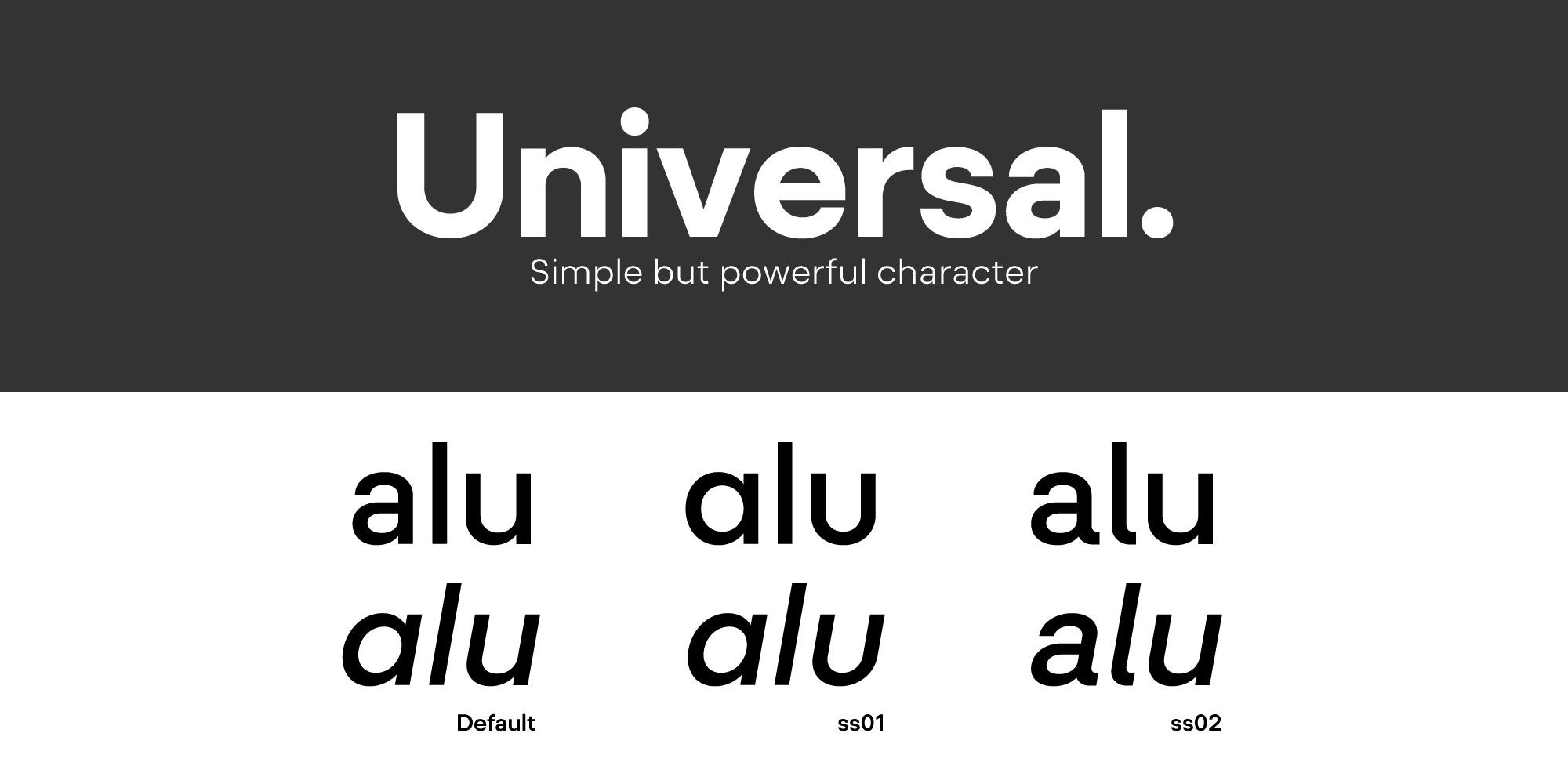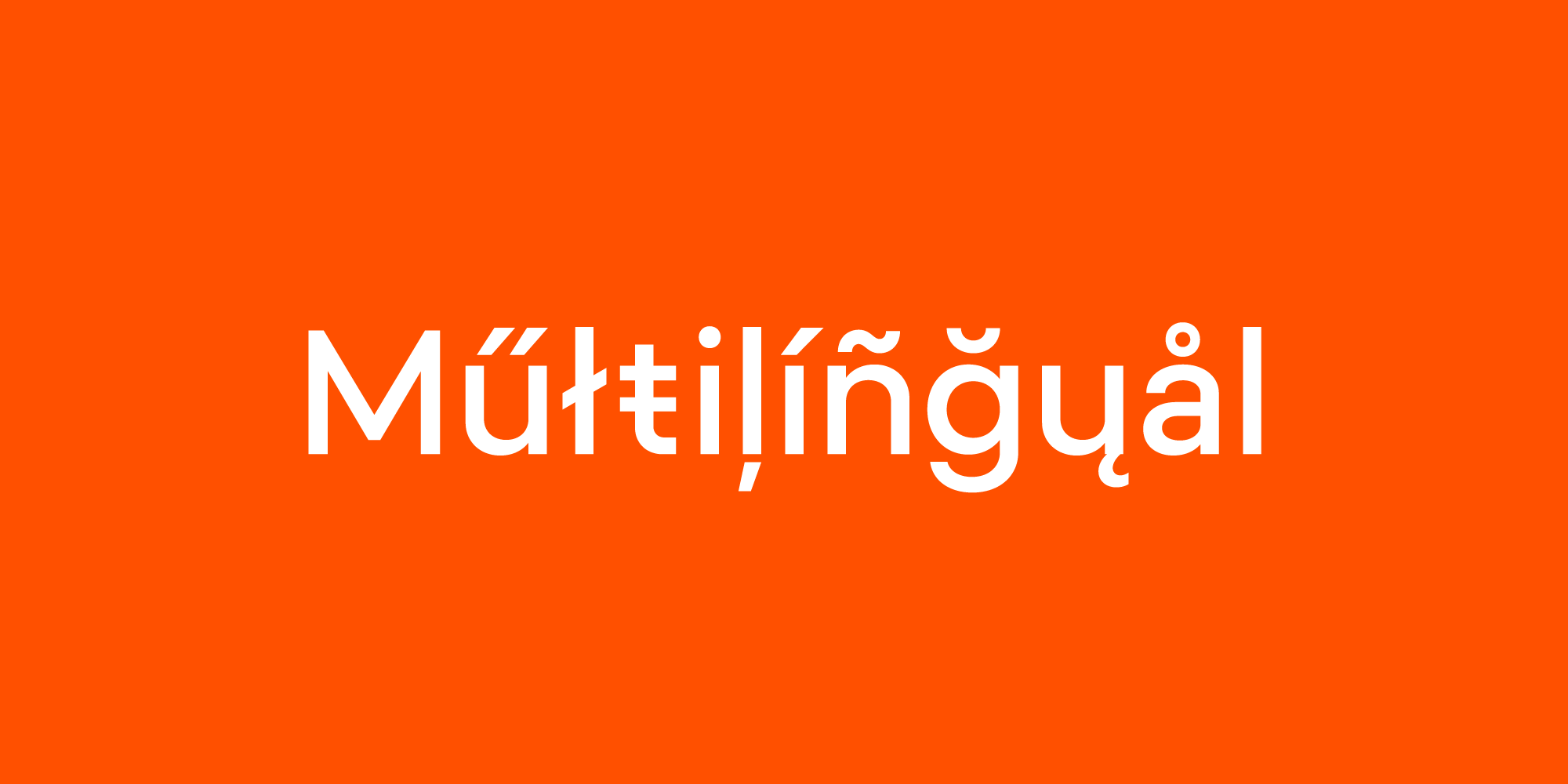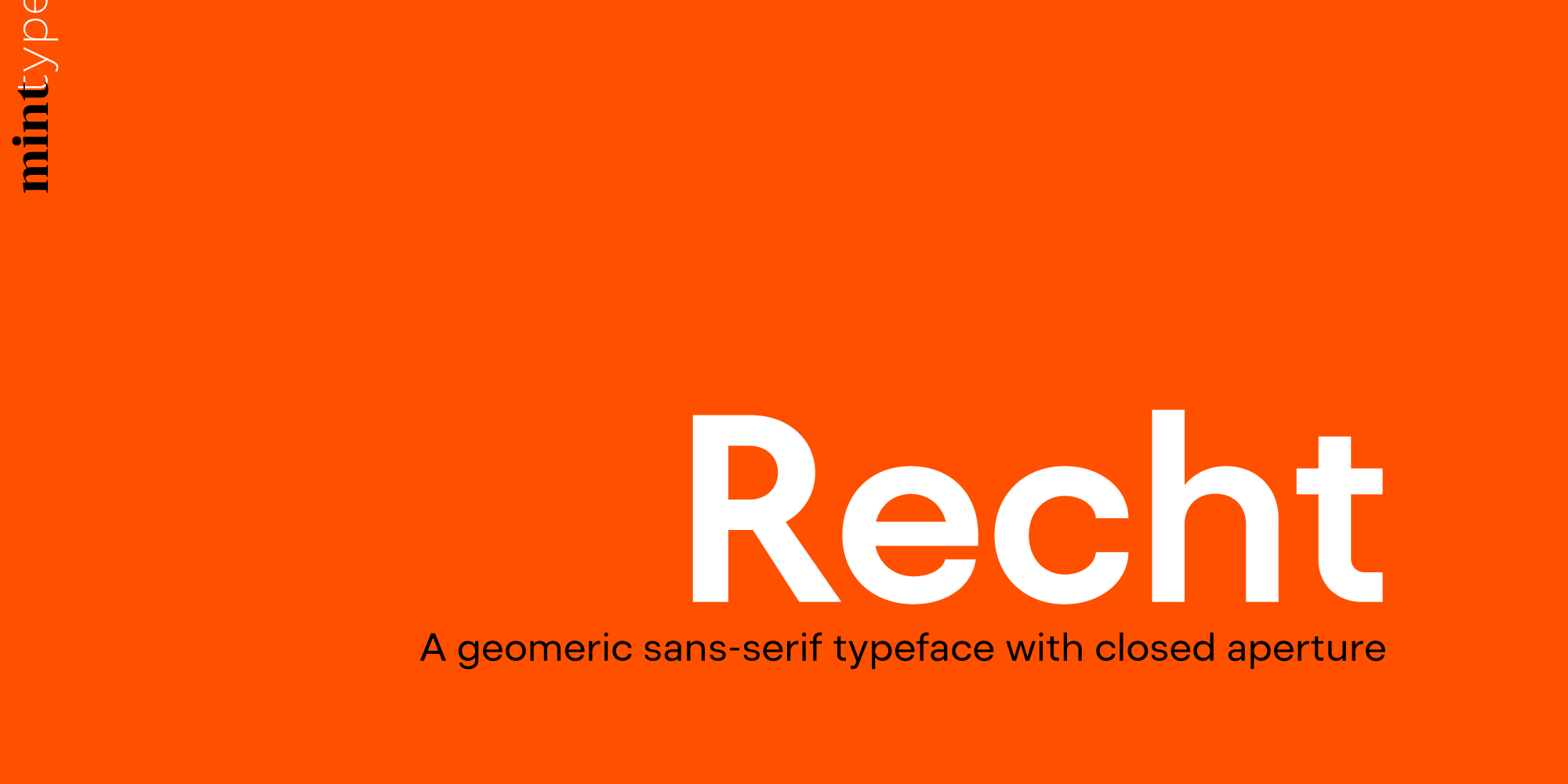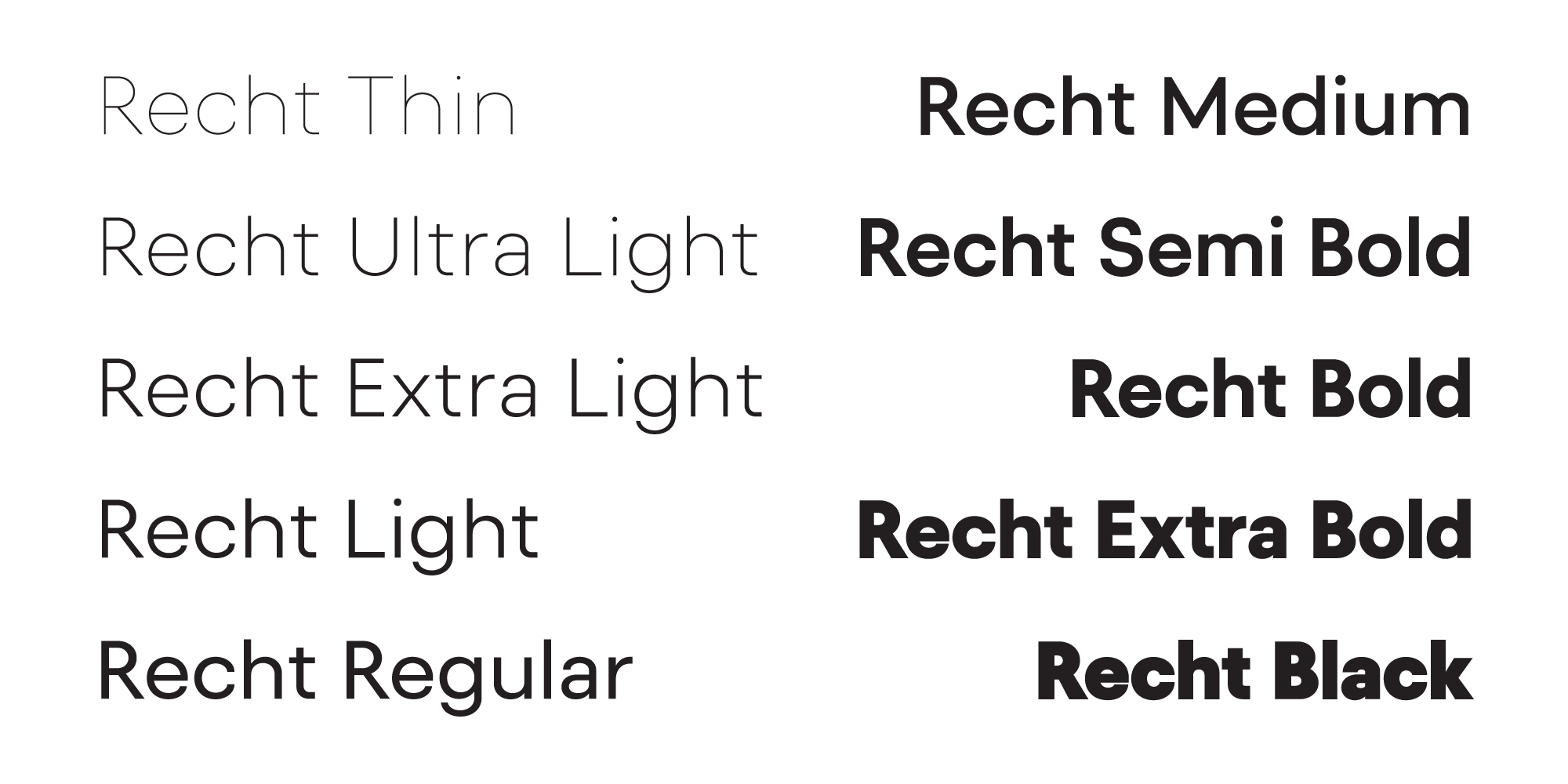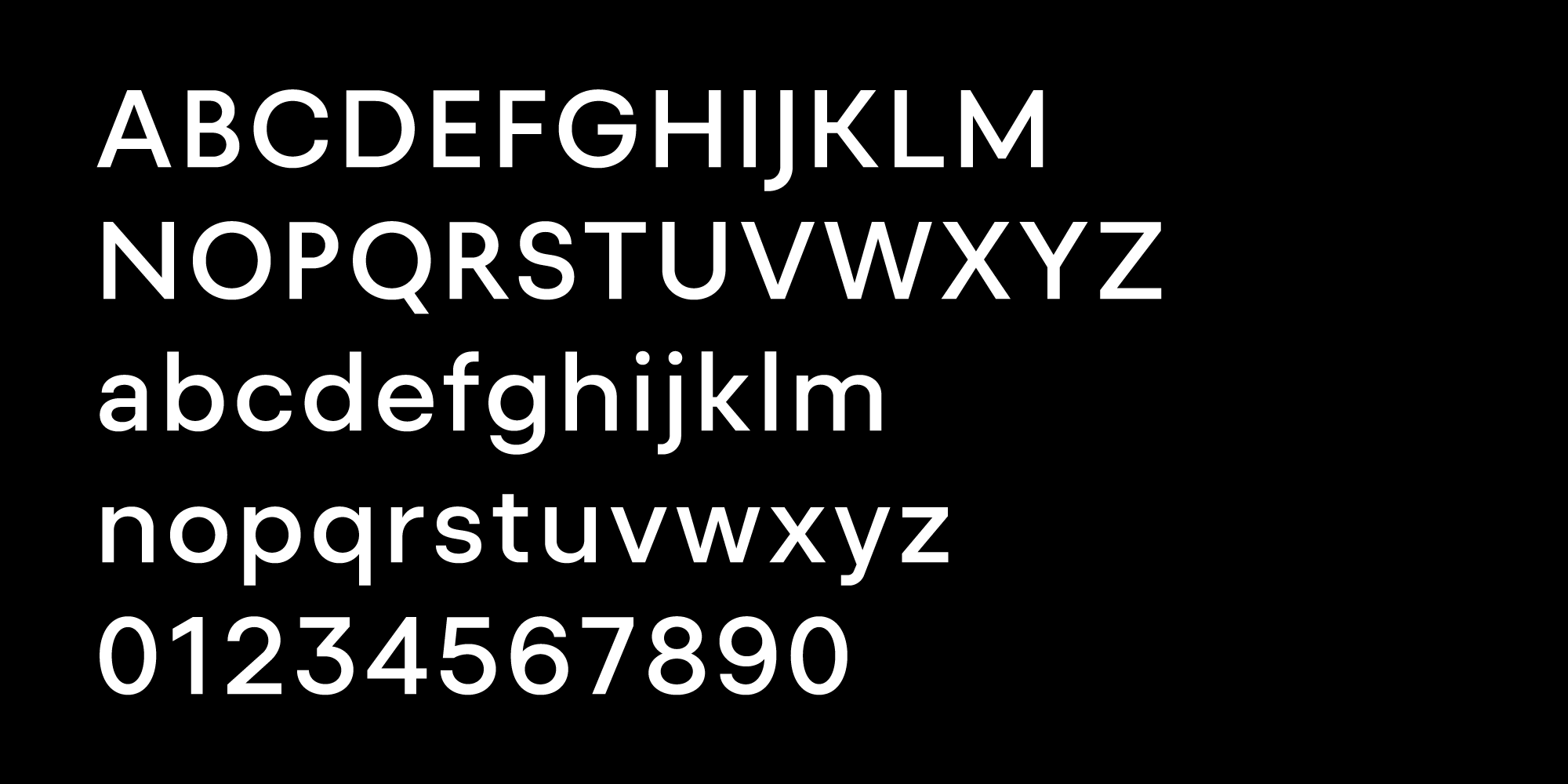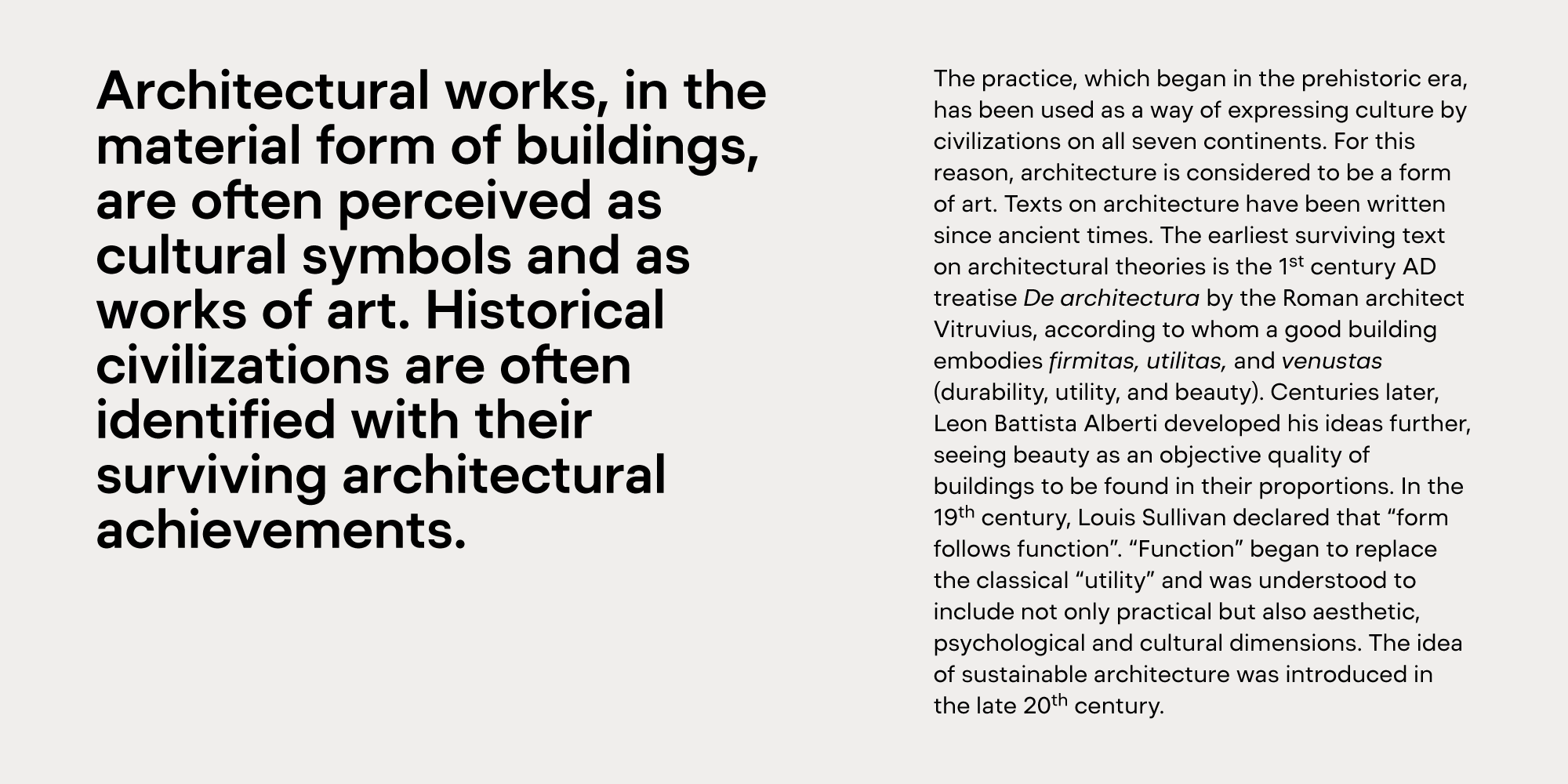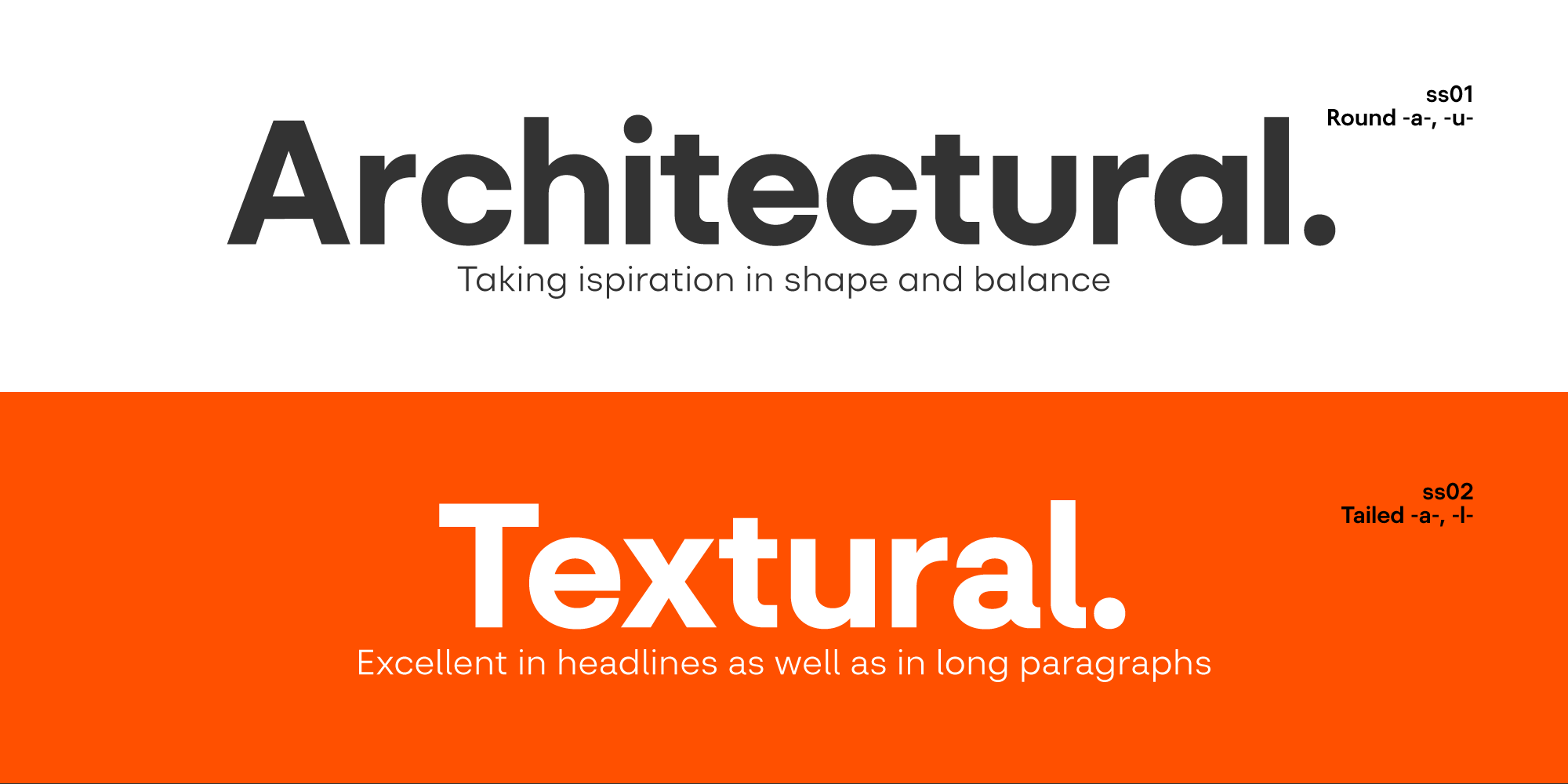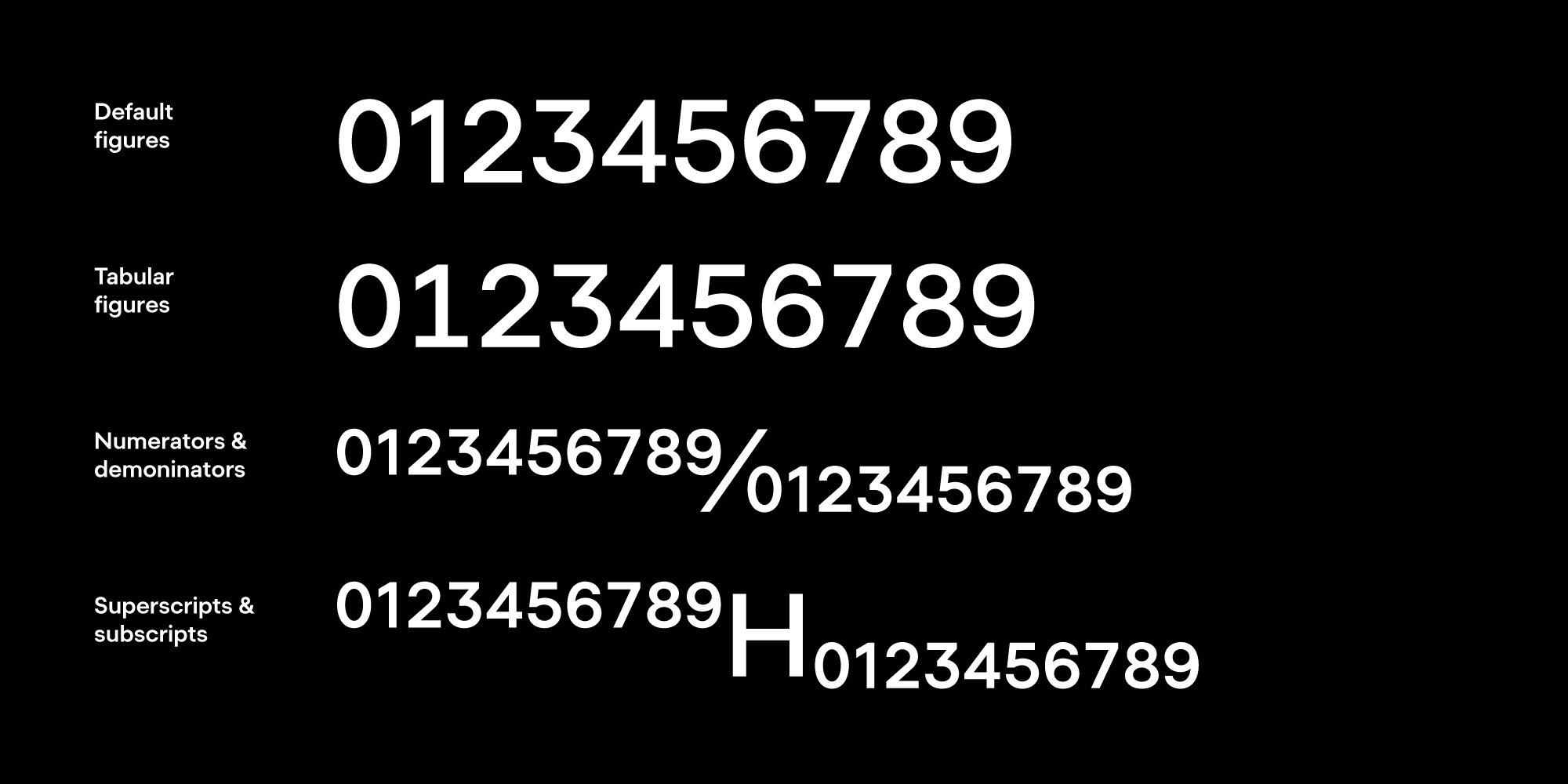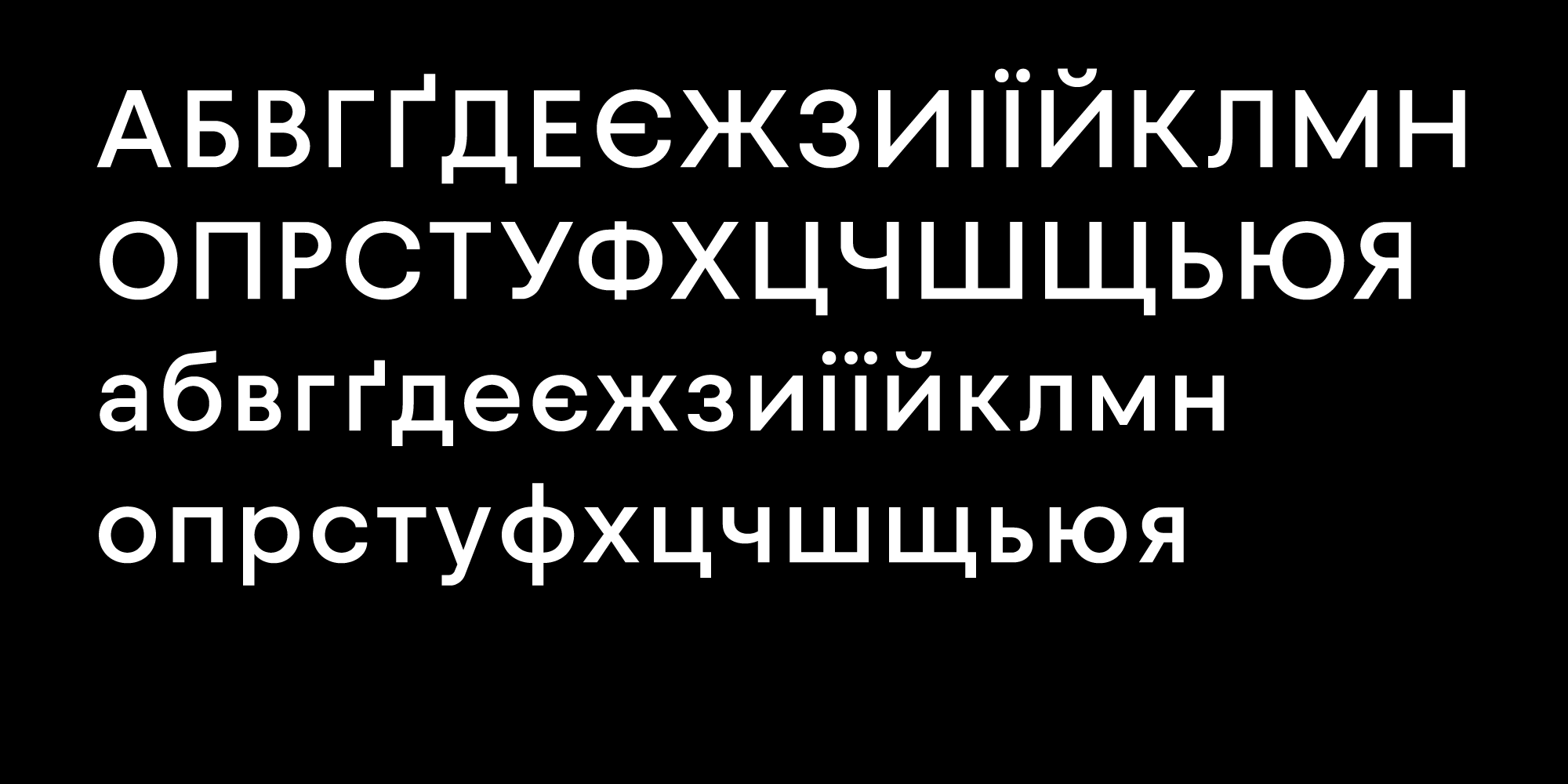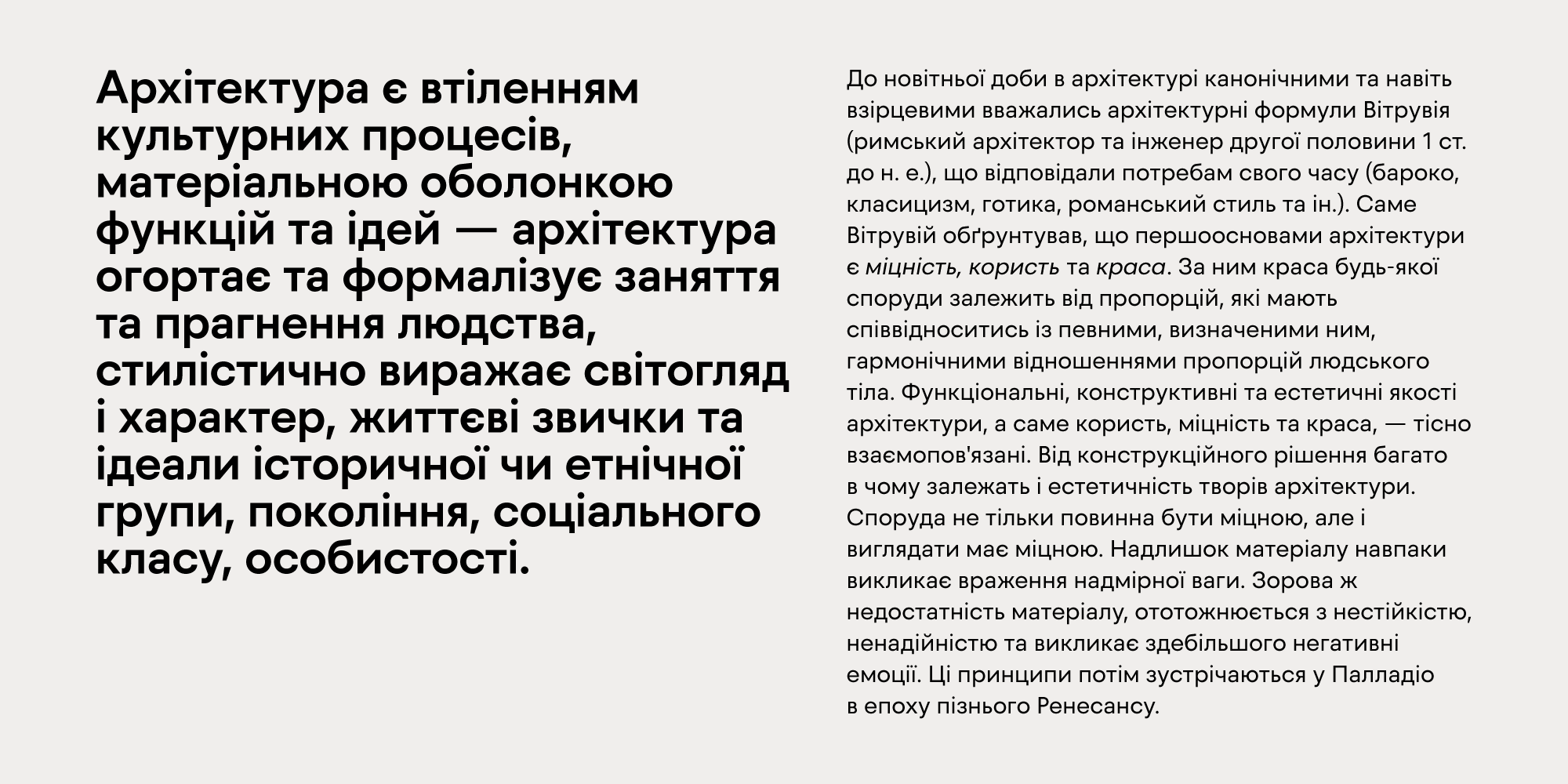
Recht
Recht is a geometric sans with much attention to curvature compensations, classifying between classic geometric sans-serif typefaces and neo-grotesques. The family contains 10 weights with corresponding italics, Cyrillic script with inclusion of Ukrainian Cyrillic, and a bunch of OpenType features.
Recht has a closed aperture and is extremely versatile, working exceptionally well in both headlines and long text paragraphs. You can use stylistic sets for added geometric or humanist flavour.
Designed by Andriy Konstantynov